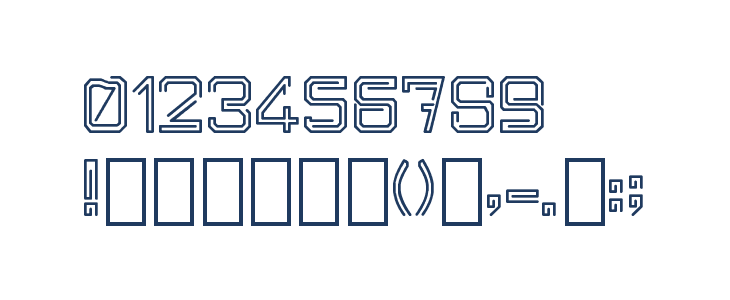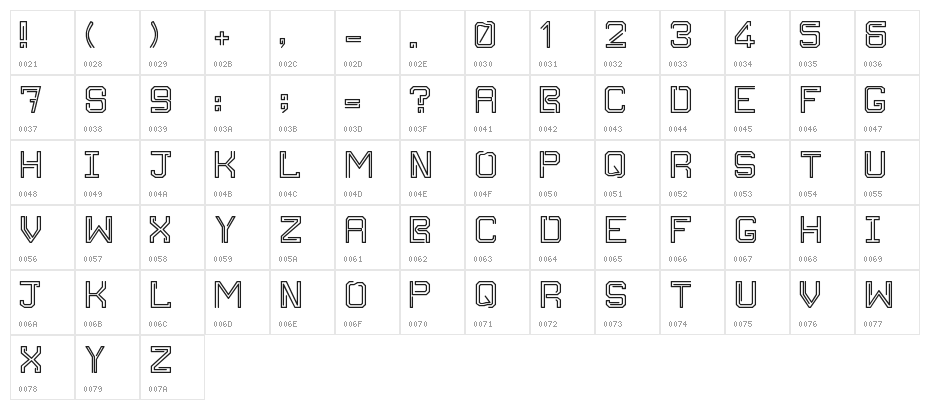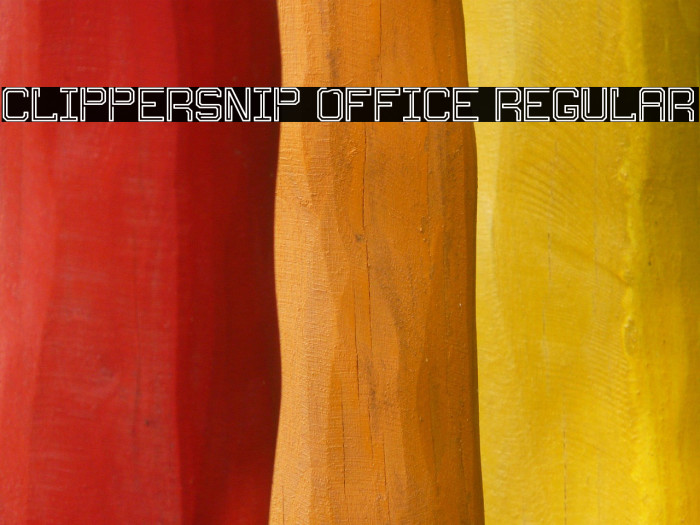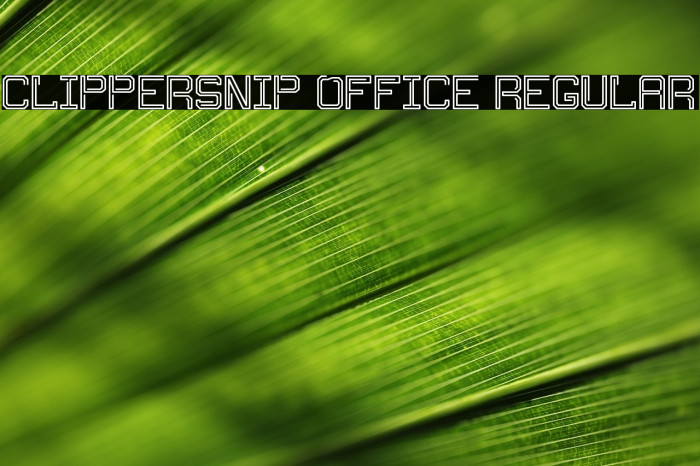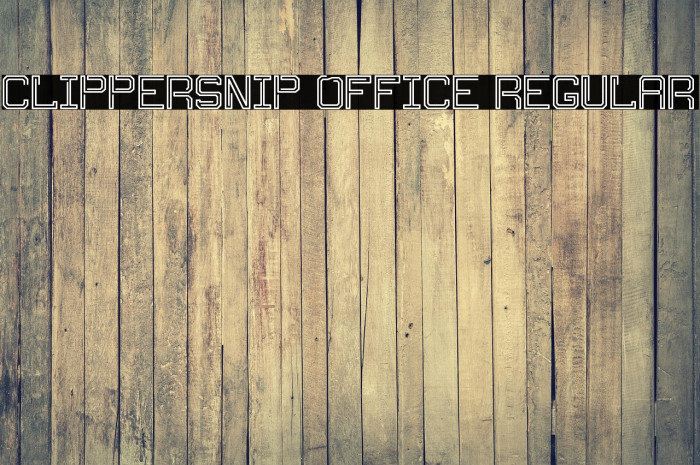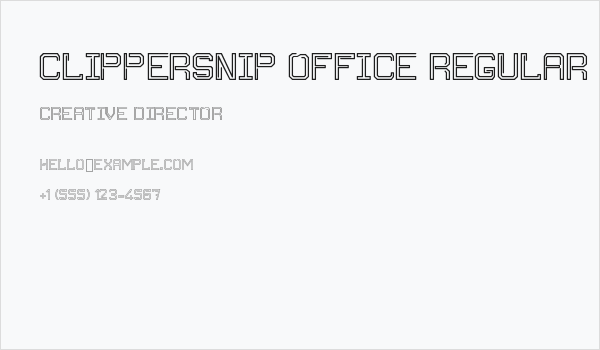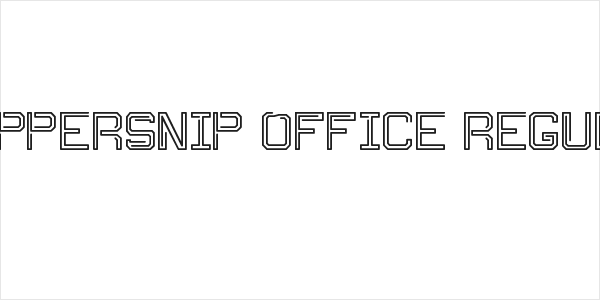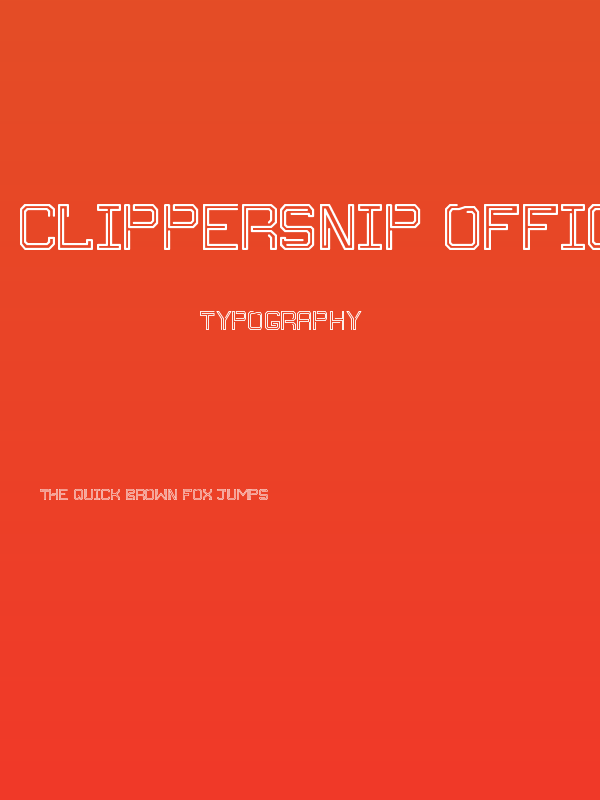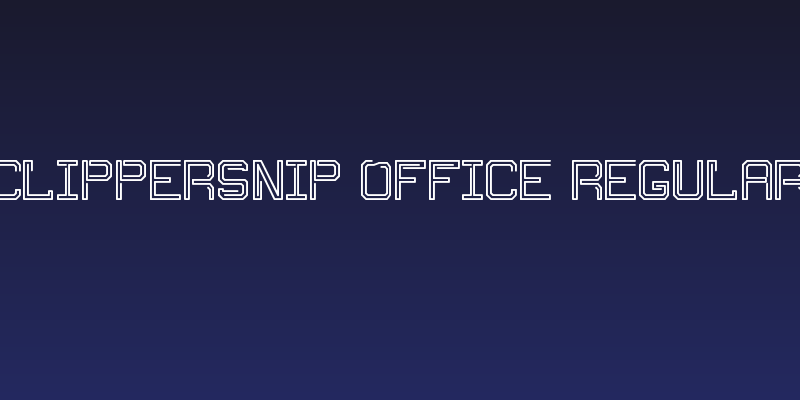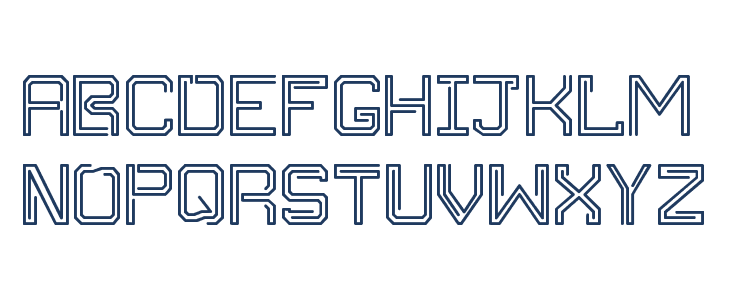
Clippersnip Office Regular Font
Clippersnip Office Regular Description
This font features a unique, geometric design with a double-line structure that creates a hollow effect. The characters are constructed with straight lines and sharp angles, giving them a modern and technical appearance. The uppercase and lowercase letters maintain a consistent style, with the uppercase being slightly larger and more pronounced. The numbers and special characters follow the same design principles, ensuring uniformity across the font. This font's distinct style makes it stand out, offering a futuristic and digital aesthetic that is both eye-catching and versatile.